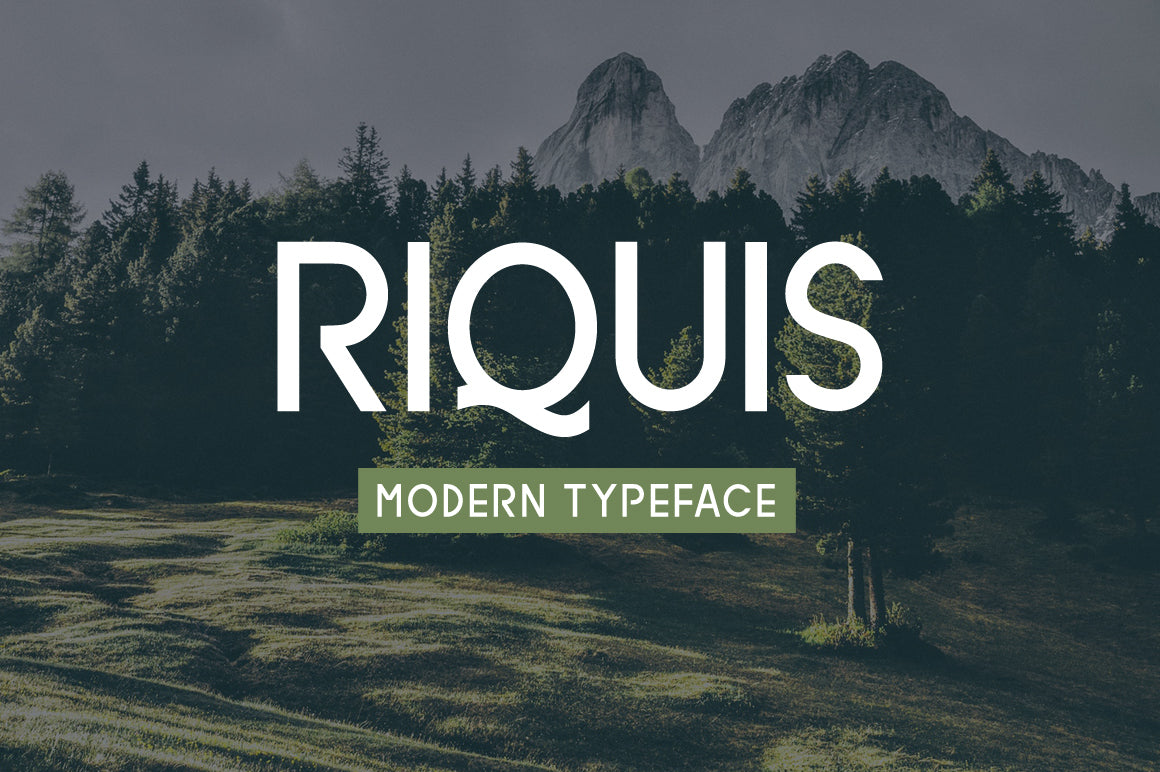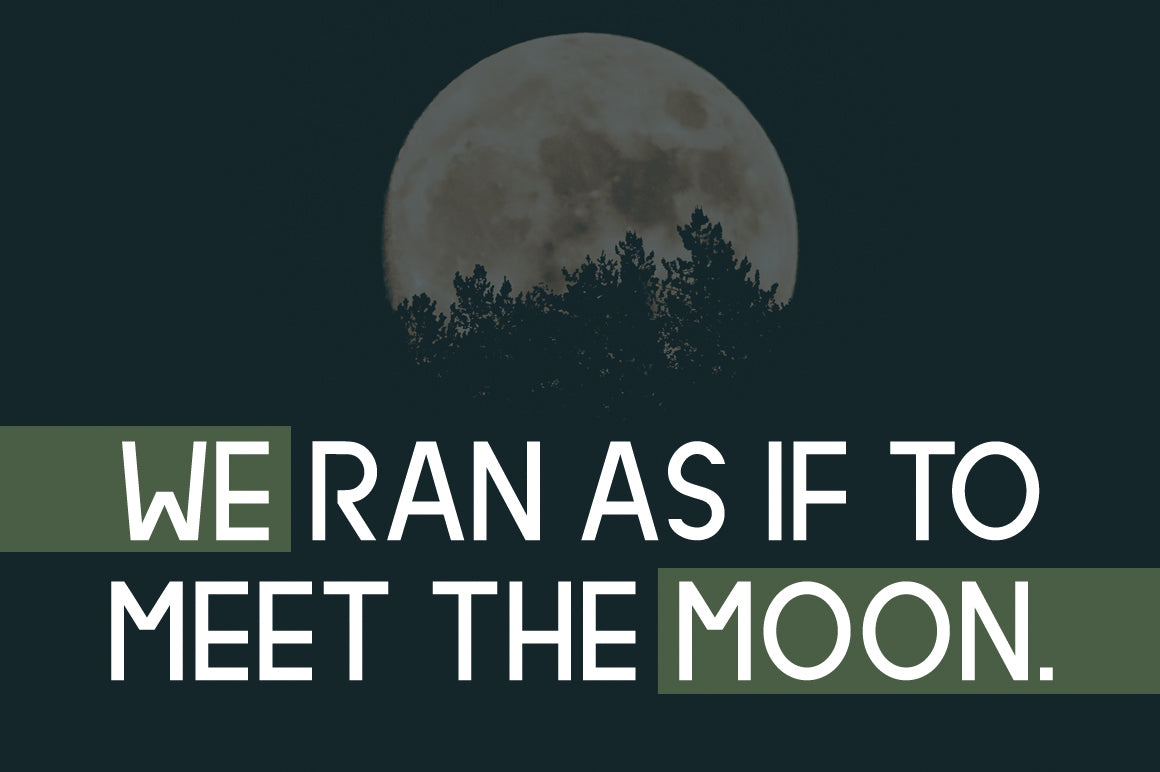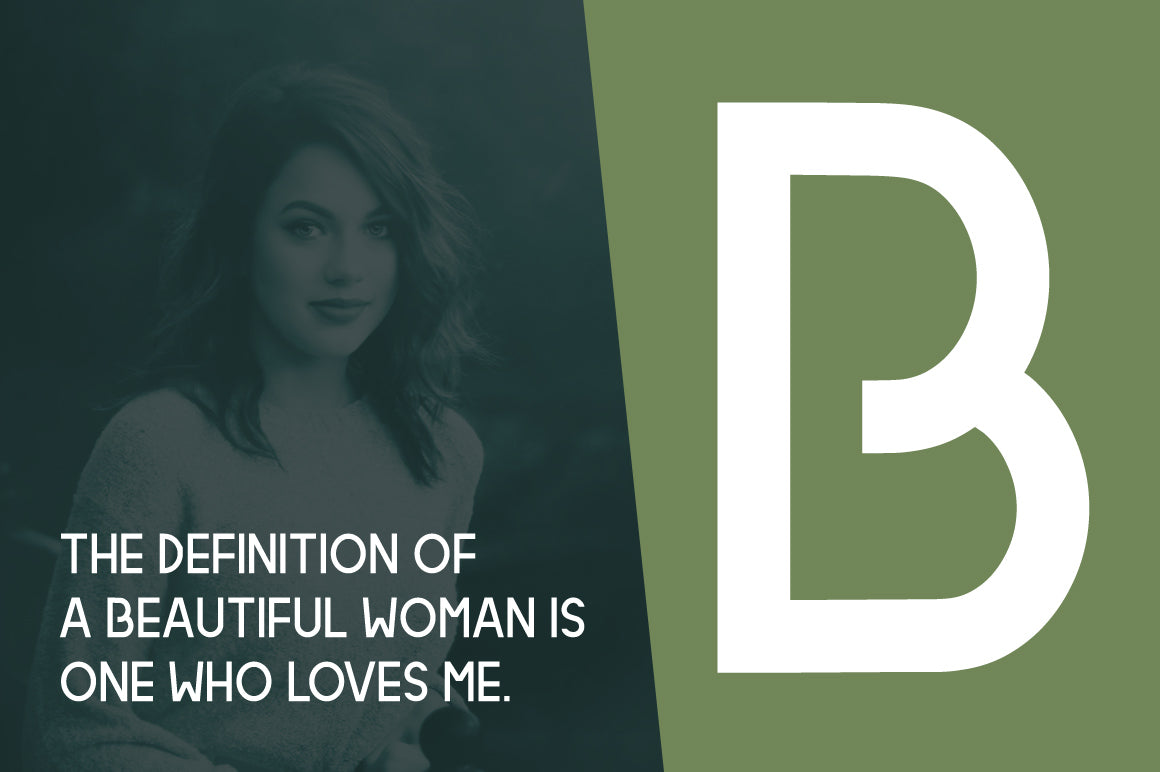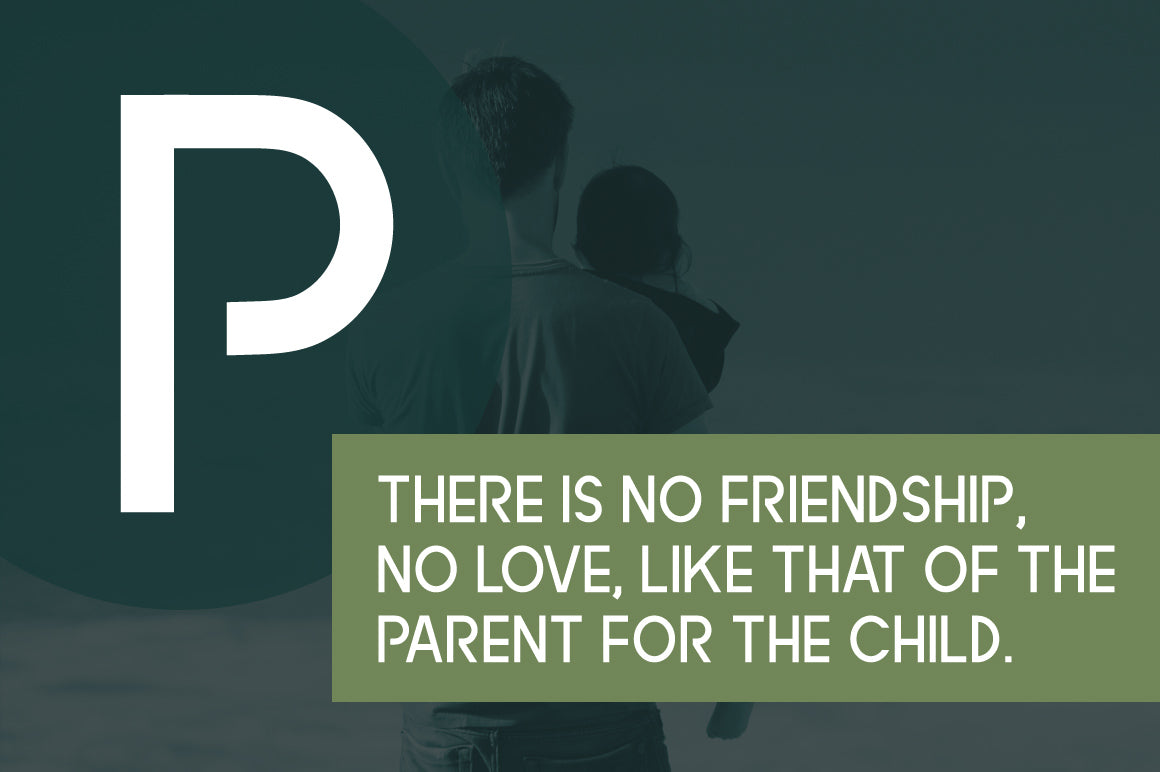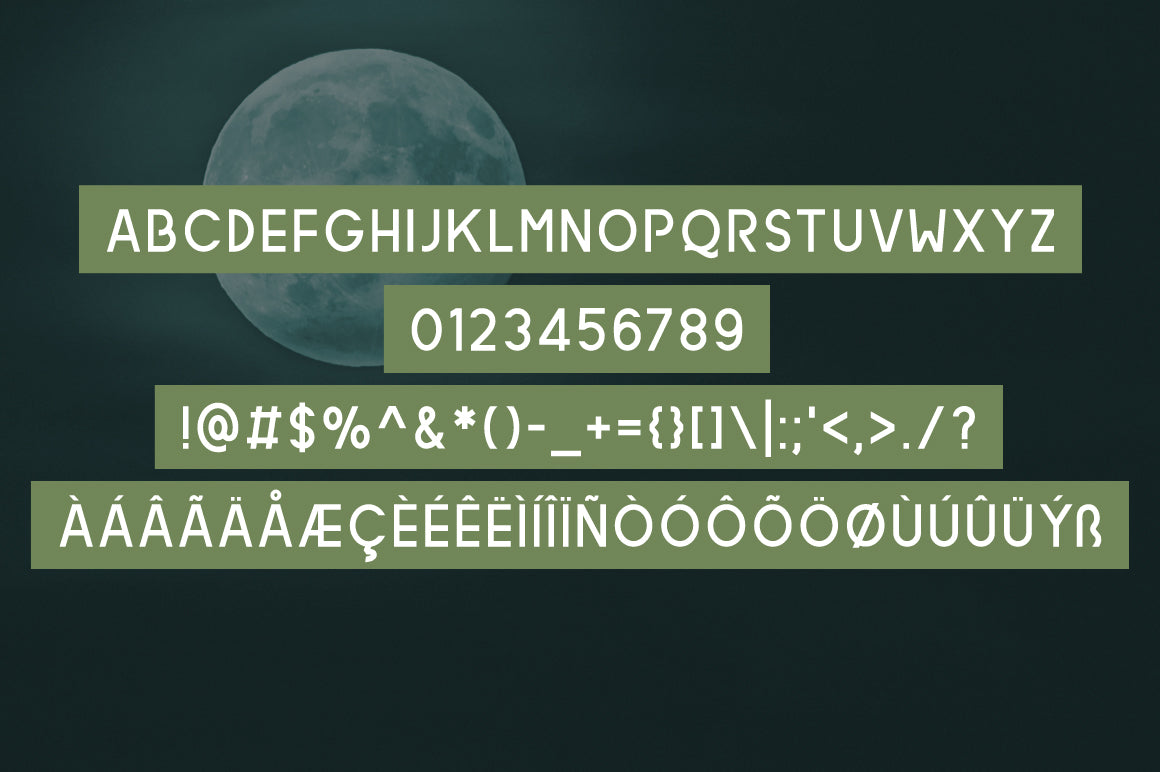
Riquis is a brand new font designed to bring a modern and stylish edge to your creative projects.
Perfectly suited for stationery, logos, t-shirts, print design, website headers, photo frames, flyers, music covers, posters, image sliders, and much more, Riquis offers versatility and flair in every letter. Its clean lines and distinctive character make it an excellent choice for both personal and professional use—adding a contemporary touch wherever it's applied.